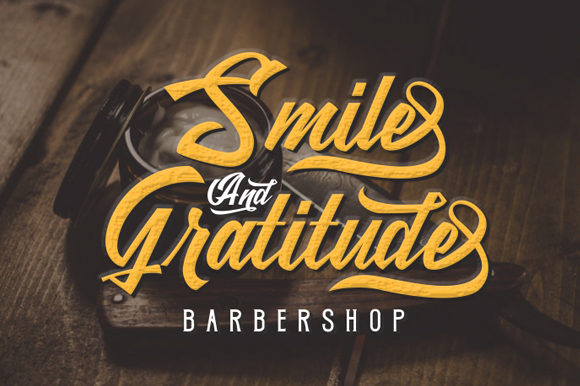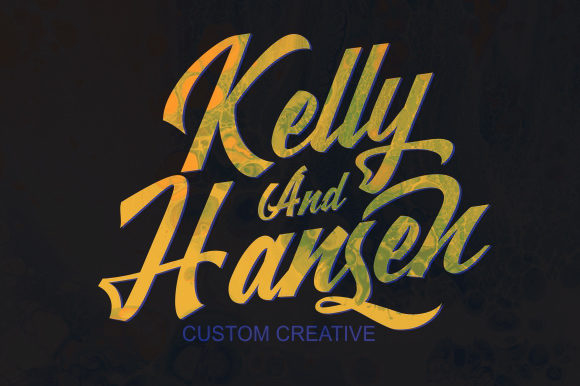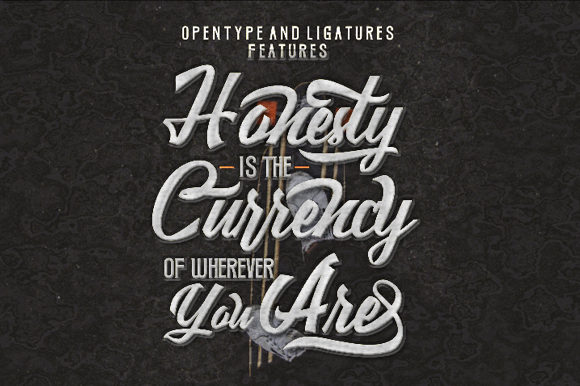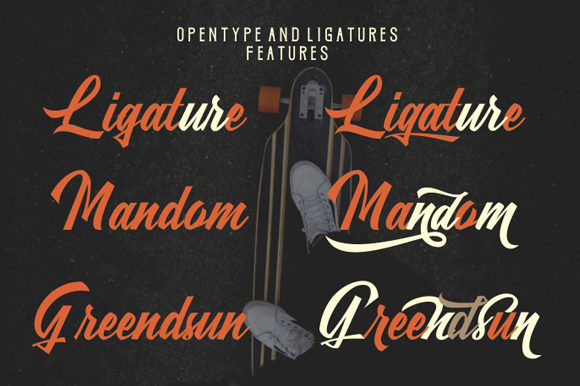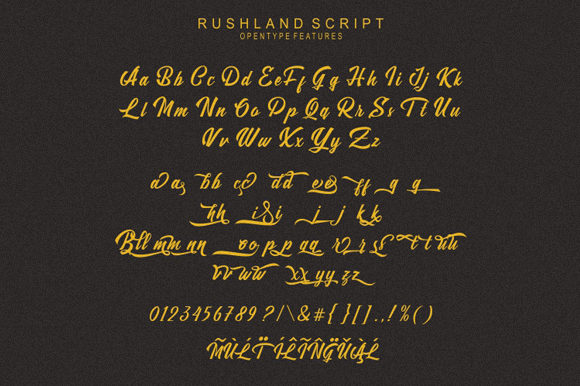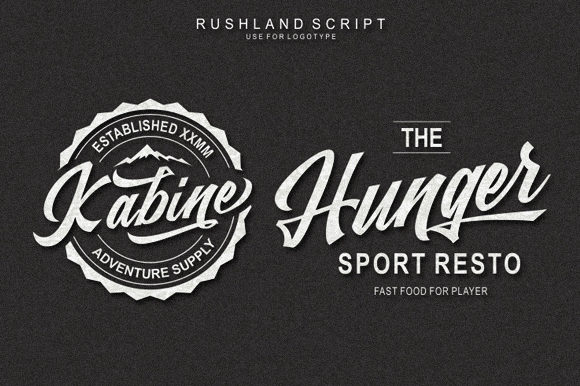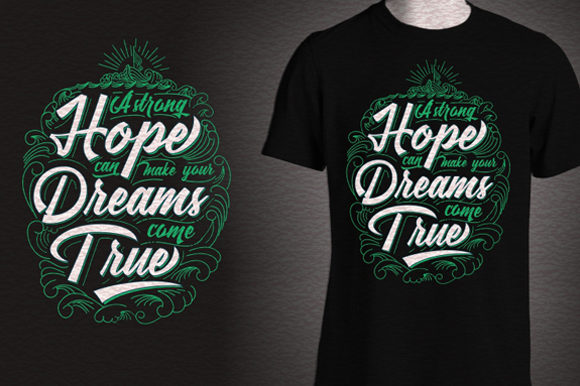
HomeScript FontsRushland Font Script Fonts Rushland Font FacebookXPinterestWhatsApp Rushland Font Poster 2 Rushland Font Poster 3 Rushland Font Poster 4 Rushland Font Poster 5 Rushland Font Poster 6 Rushland Font Poster 7 Rushland Font Poster 8 About Rushland Font Rushland is a nostalgic and bold script with dynamic swashes. Use it to take any design project to the next level! DOWNLOAD NOW People also explored Oakline Font Home Snow Font Hello Valentine Font Manggo Sunrise Font Writing Signature Font Skyzone Font Bafera Font Syamilla Marttine Font Wild Flourish Font 339 0 TagsRushland Font Previous articleZolleha FontNext articleLonely Sunday Font LEAVE A REPLY Cancel reply Comment: Please enter your comment! Name:* Please enter your name here Email:* You have entered an incorrect email address! Please enter your email address here Website: Save my name, email, and website in this browser for the next time I comment. Personal Use Free Daisy Script Personal Use Free Read more about this font Brittish State Personal Use Free Read more about this font Maharany Personal Use Free Read more about this font Engine Personal Use Free Read more about this font BLOG Best Fonts for YouTube Videos: Make Your Thumbnails Stand Out Best Fonts for YouTube Videos: Make Your Thumbnails Stand Out Choosing the right font can make a massive difference in how your YouTube videos perform.... Using Fonts in Digital Marketing: Tips to Strengthen Your Brand Identity Transform Your Website: Elevate Your Typography with 7 Best Web Font Generators Elegant Wedding Invitation Fonts – Handwritten & Script Fonts